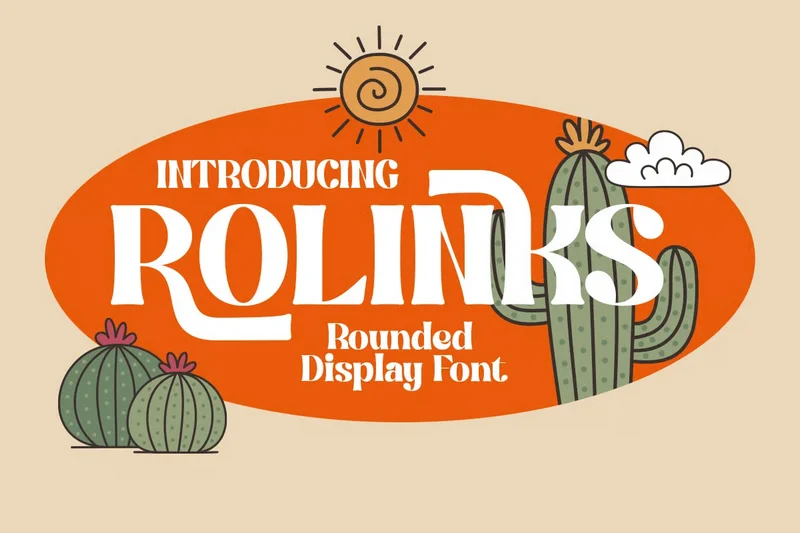
Rolinks – Rounded Retro Font
Rolinks is rounded display font with bold style. A blend of vintage charm and modern flair. This typeface features strong, confident serifs that evoke a sense of nostalgia while remaining undeniably fresh. Rolinks font is best used for headings, logotype, quotes, retro design, invitation, poster, flyers, greeting cards, packaging, book cover, printed quotes, cover album, movie, & etc.
Stylish Alternates
Ligatures Character